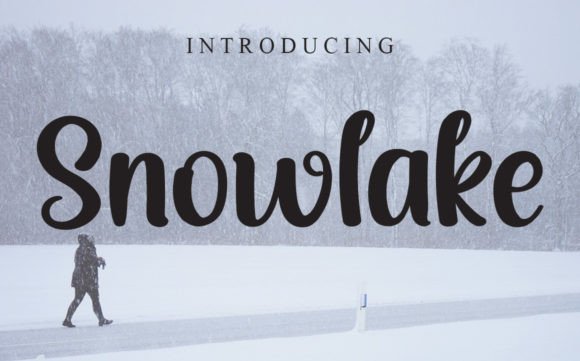
Snowlake Font
Introducing the Snowlake Font: A Symphony of Elegance for Your Wedding Invitations
Immerse yourself in the world of Snowlake, a captivating script font designed to evoke the emotions of your special day. This font is more than just a collection of letters—it's a testament to love, joy, and the beauty of new beginnings.
With its delicate strokes and enchanting curves, Snowlake dances across the page like a whisper of romance. Its whimsical nature will transform your wedding invitations into exquisite works of art, capturing the essence of your love story.
Imagine your guests' eyes sparkling with delight as they receive your wedding invitations, adorned with the Snowlake font. Its graceful lines and charming personality will set the tone for an unforgettable celebration.
This font isn't just limited to invitations; it's a versatile companion for any design that calls for a touch of romance. Envelopes, menus, table settings, signage—Snowlake will elevate every element of your wedding décor, creating a cohesive and enchanting atmosphere.
So, let Snowlake be your font of choice and let it weave its magic into your wedding day. Immerse yourself in its delicate beauty and create memories that will last a lifetime.
Key Features & Benefits:
- Exquisite Handwritten Script: Snowlake's delicate strokes mimic the flow of a handwritten note, adding a personal touch to your designs.
- Wedding-Themed Designs: This font is specially designed to complement the joyous occasion of a wedding, evoking feelings of love and celebration.
- Versatile Application: Whether it's invitations, menus, table settings, or signage, Snowlake effortlessly enhances any design, creating a cohesive and elegant theme.
- Unforgettable Impression: Make a lasting impression on your guests with Snowlake's captivating design, ensuring your wedding is remembered for its beauty and charm.